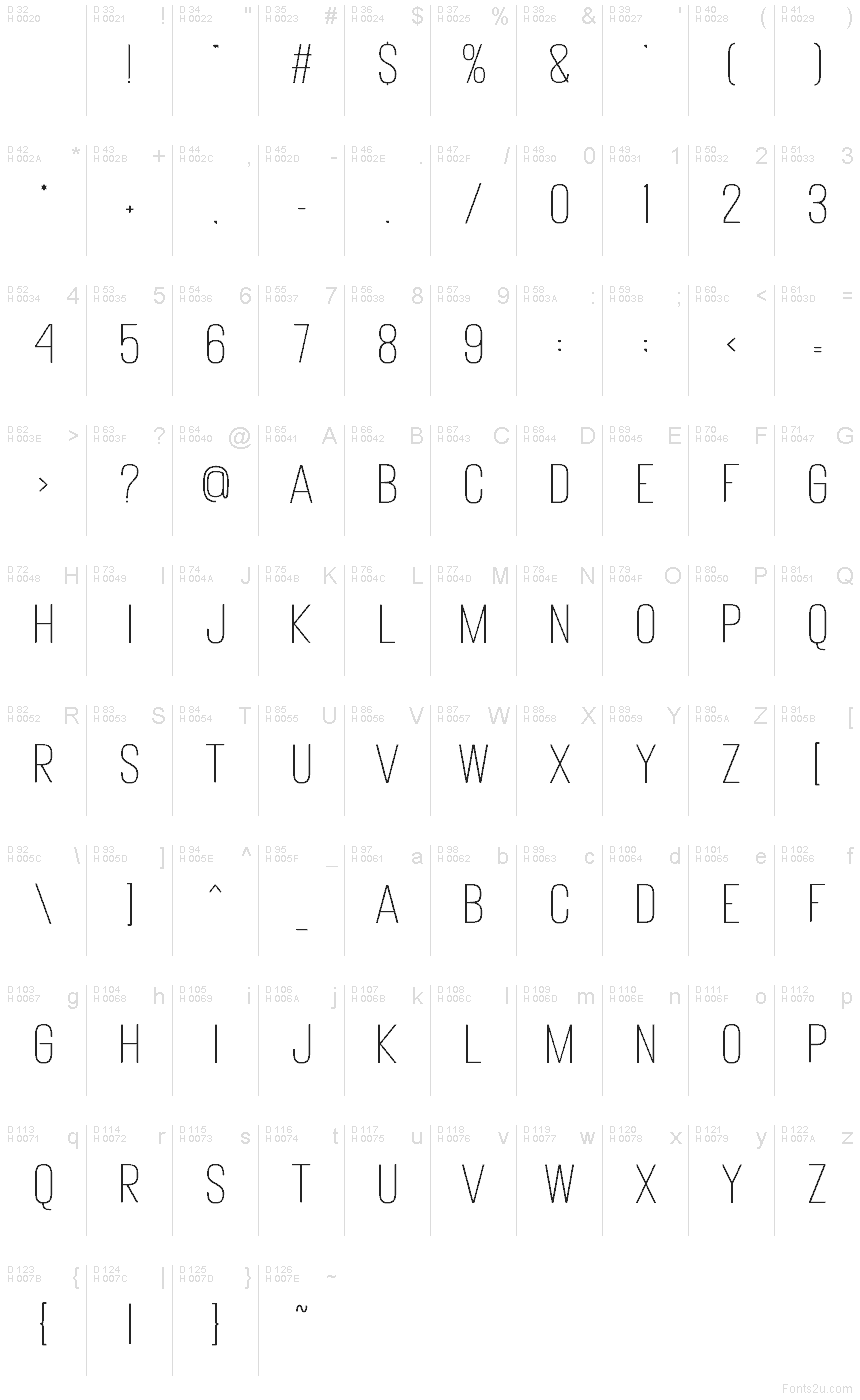
Votrag Thin
Votrag Thin font by PutraCetol Studio is a light, condensed, clean sans-serif typeface with narrow and uniform line widths. The minimalistic appearance gives this geometric font a modern and futuristic aesthetic perfect for professional designs where characters play an essential role.
Since Votrag Thin is free, designers can use it to create tech logo designs for large companies or startups. This general-purpose tool will also look great in app interfaces, website headers/ footers, magazine titles, posters, flyers and more digital or printed art projects.